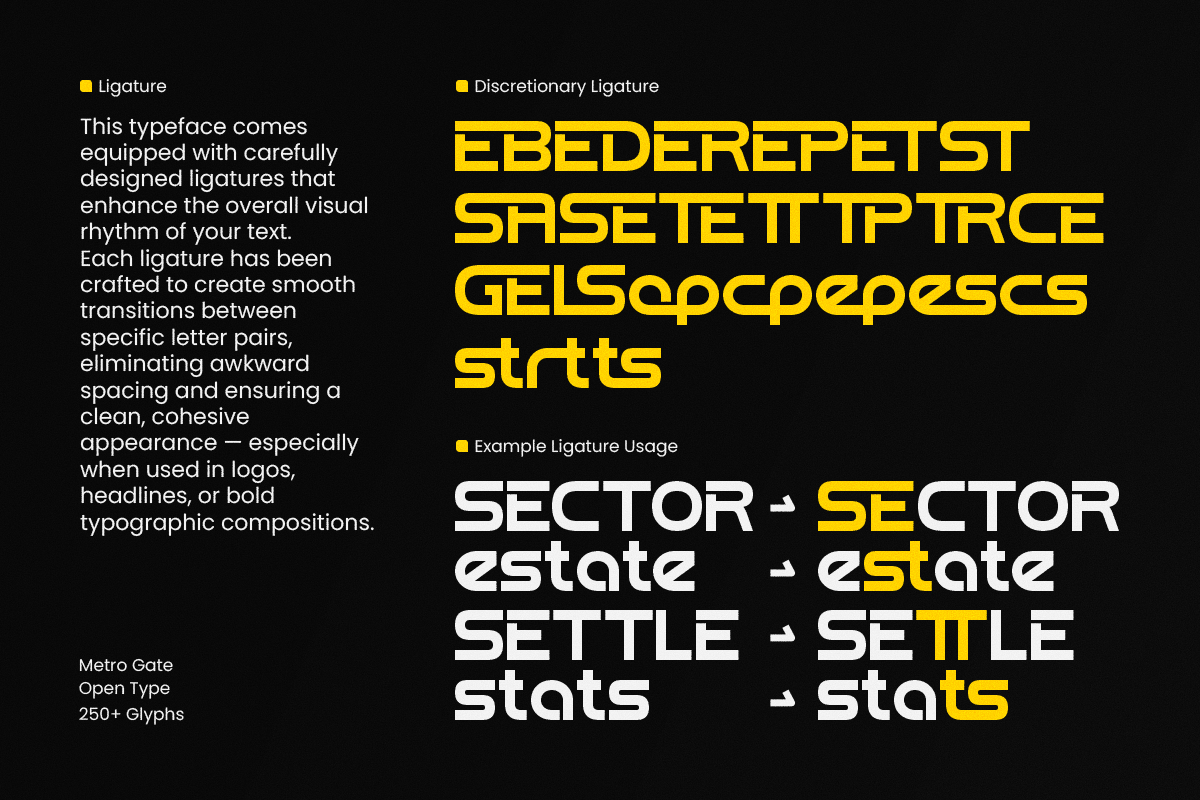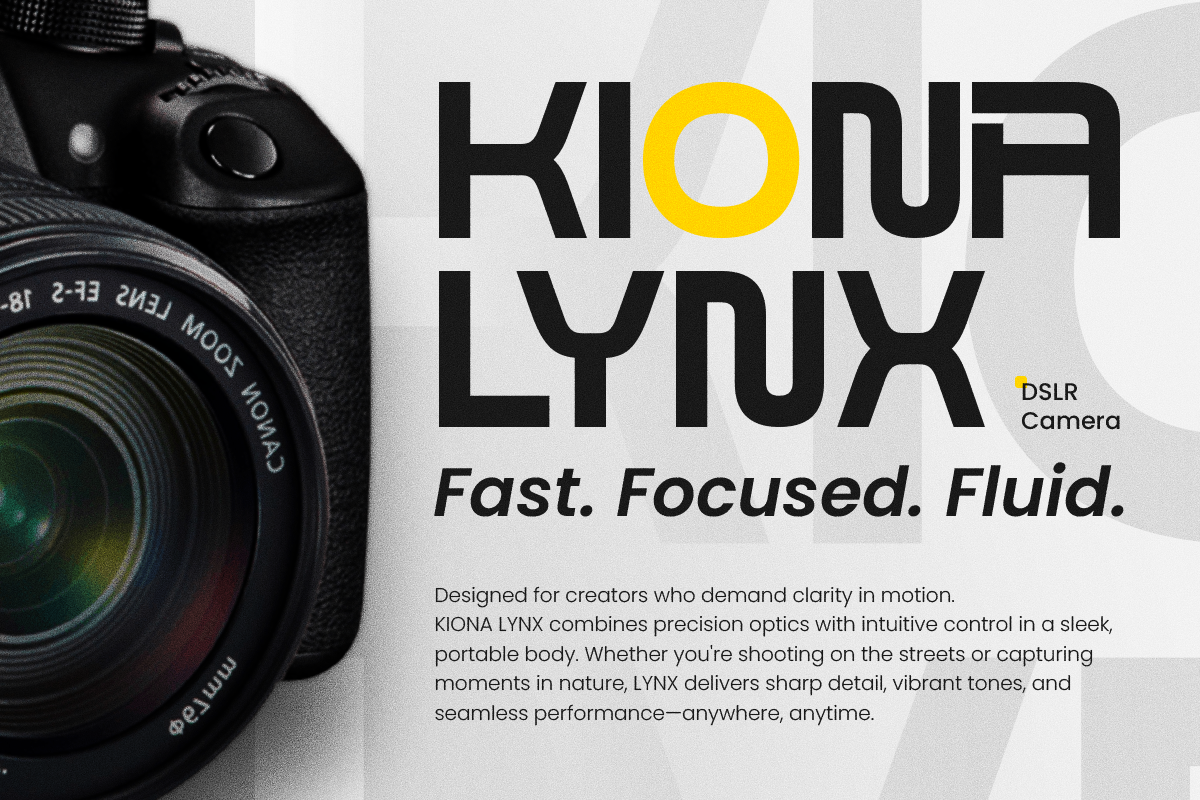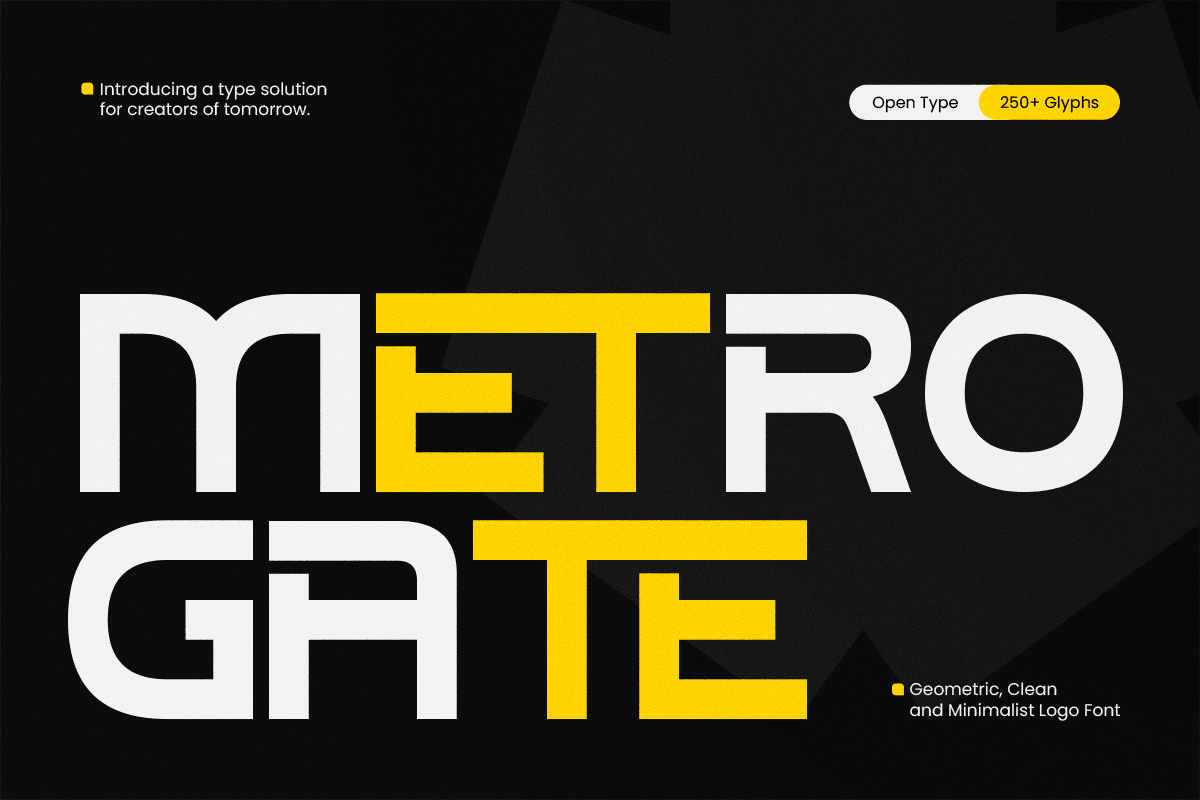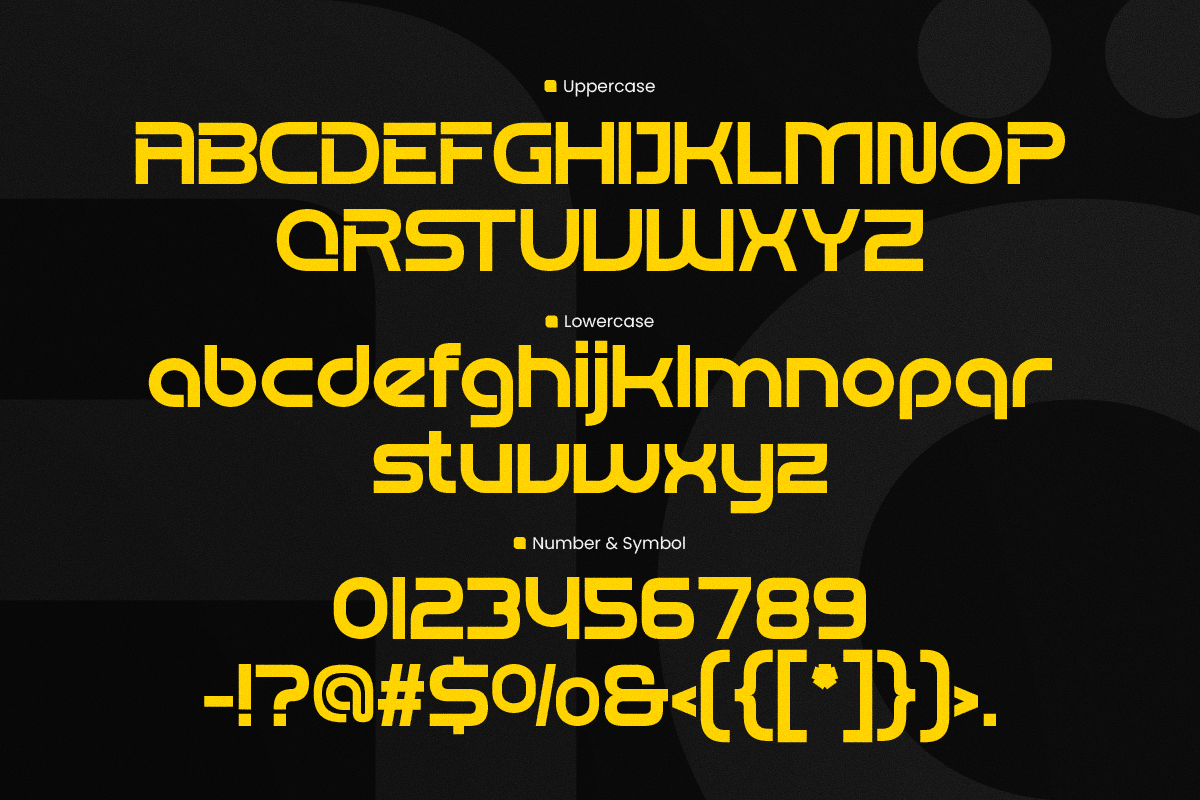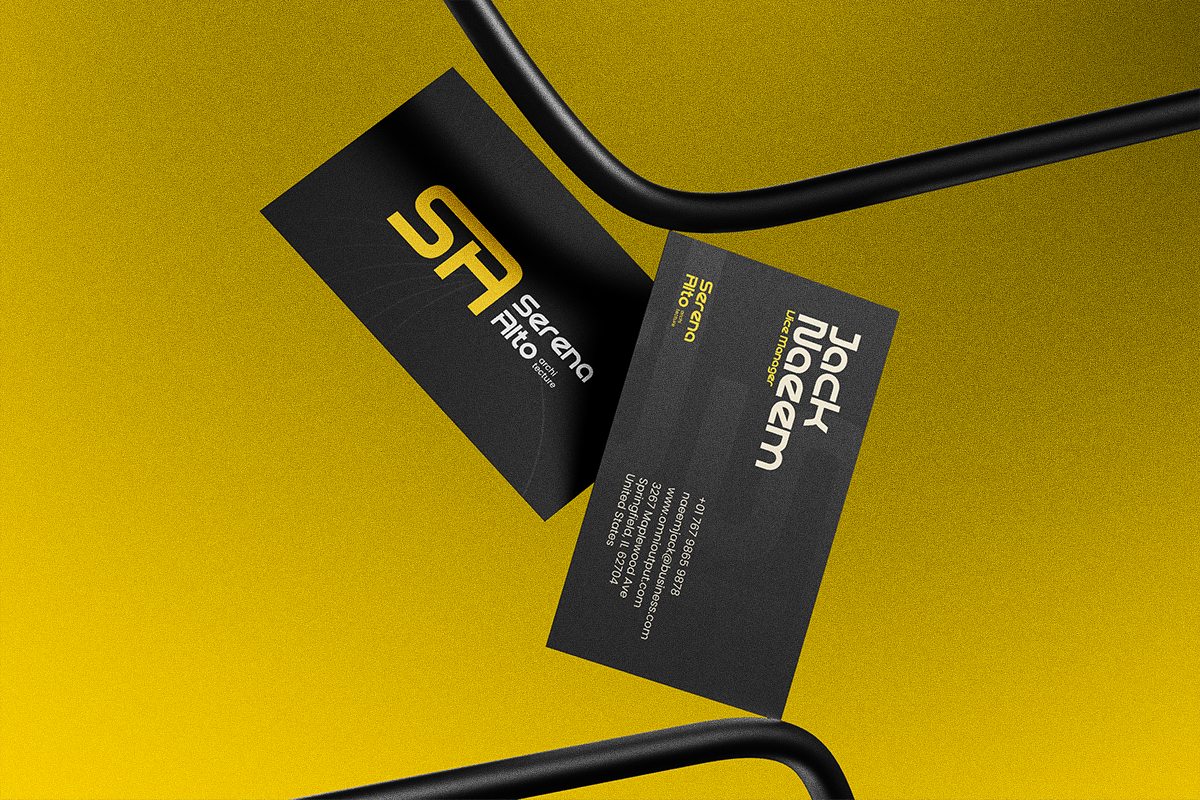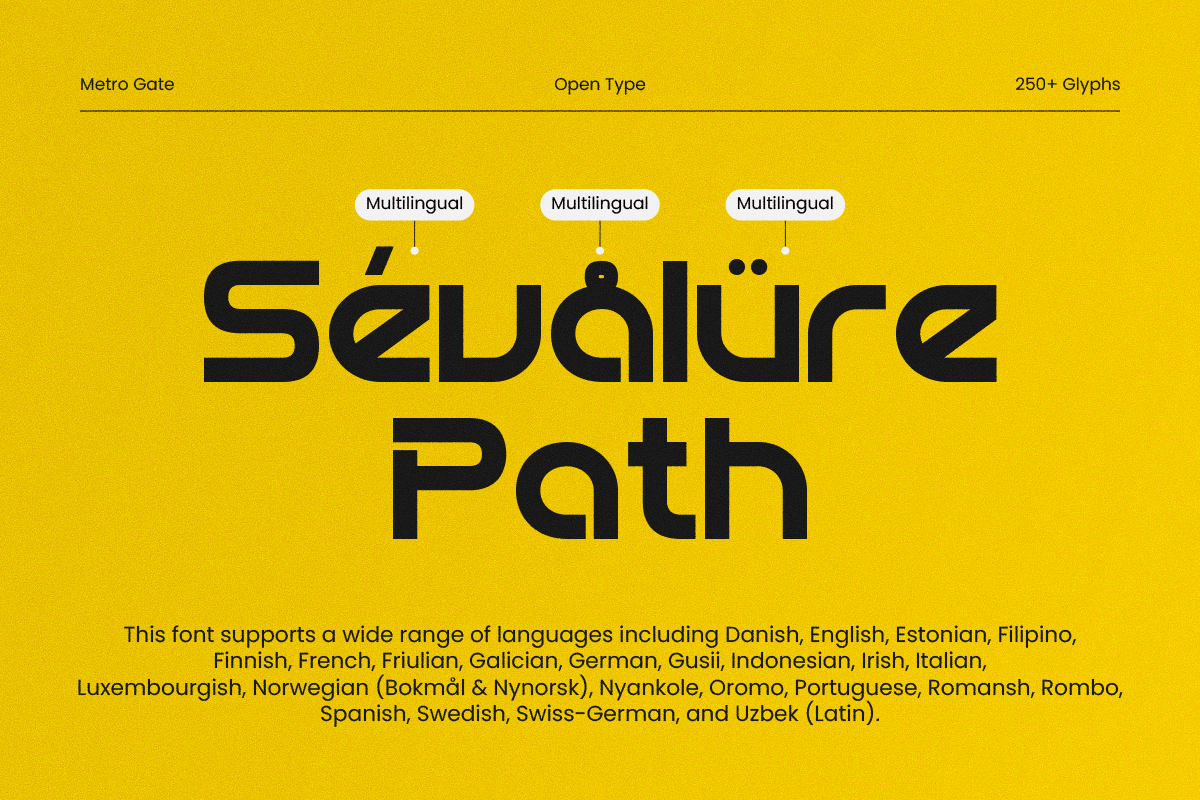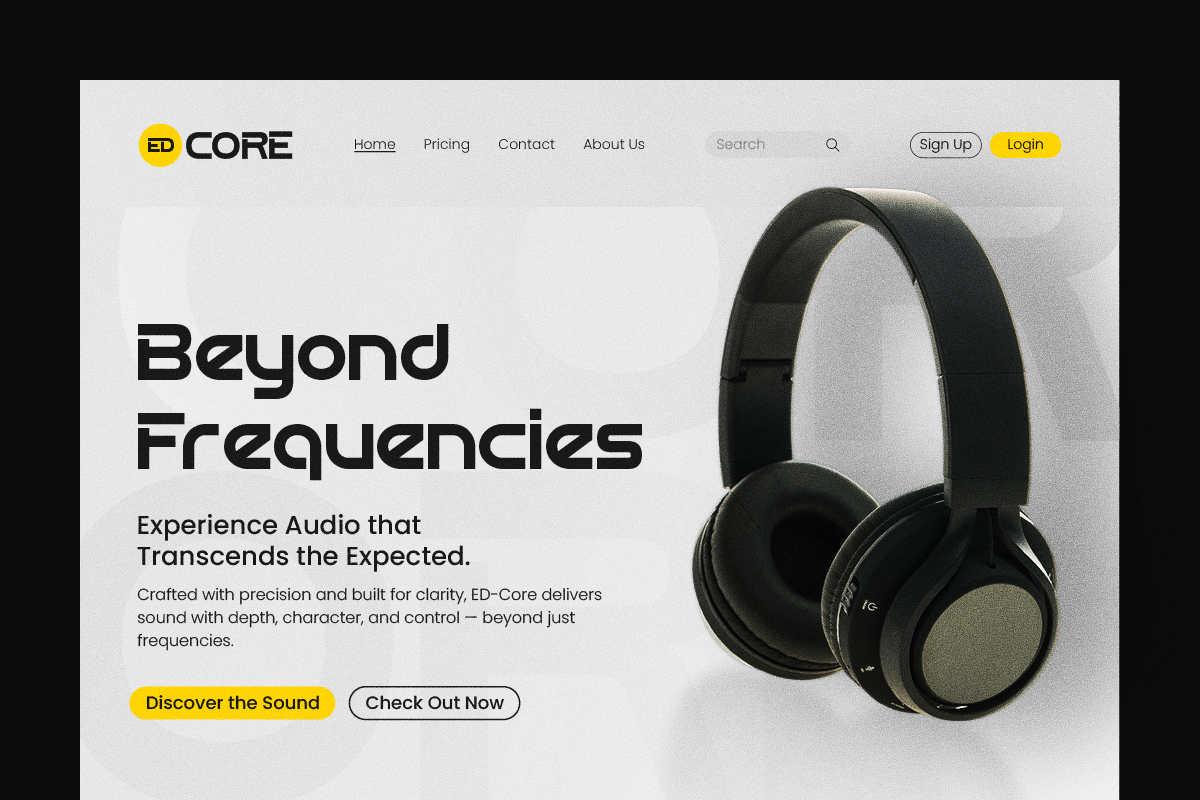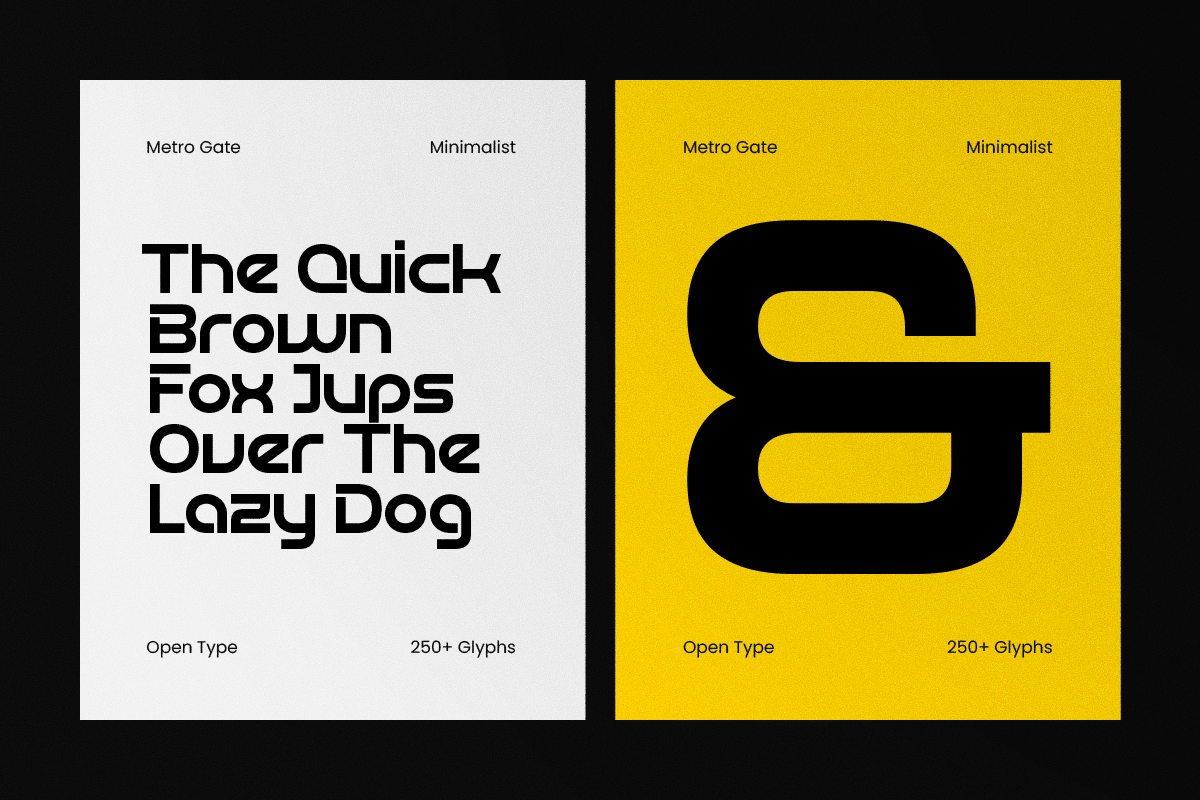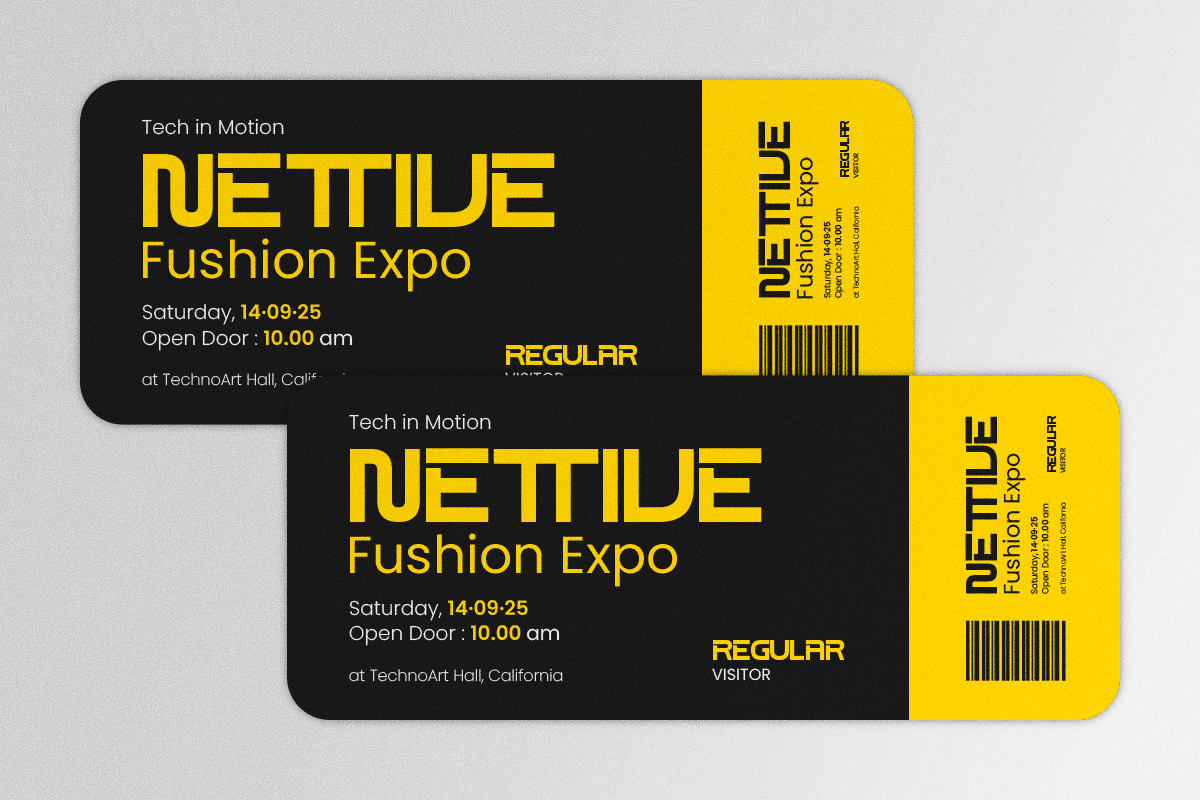
Metro Gate – Sans Serif Font
Metro Gate is a clean and minimalist geometric sans serif font designed for modern aesthetics. With its sharp lines, balanced proportions, and timeless simplicity, this font is perfect for branding, editorial layouts, websites, packaging, and logos. Metro Gate combines clarity with elegance, making it ideal for projects that demand both professionalism and style.
- Numerals & punctuation